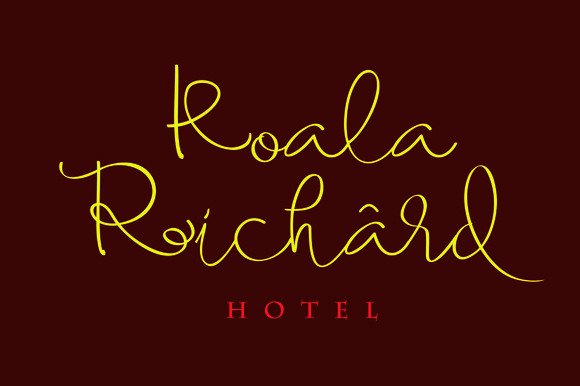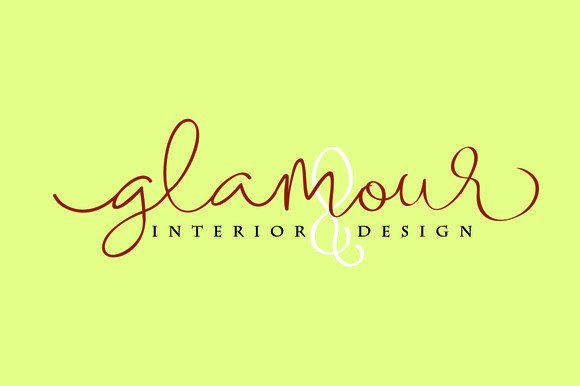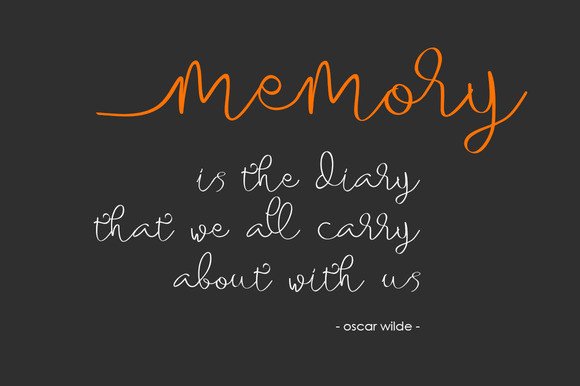
HomeScript FontsAlmarhum Font Script Fonts Almarhum Font FacebookXPinterestWhatsApp Almarhum Font Poster 2 Almarhum Font Poster 3 Almarhum Font Poster 4 Almarhum Font Poster 5 About Almarhum Font Almarhum is a beautiful, thin font; this monoline based font has a signature vibe for a relaxed and casual feel. DOWNLOAD NOW People also explored Metalmol Font Love Sunflowers Font Kathilarysa Font Yagami Font Callista Font Breston Monoletter Font Roundabout Rossalyne Font Juide Font 277 0 TagsAlmarhum Font Previous articleSambay FontNext articleEsmeralda Font LEAVE A REPLY Cancel reply Comment: Please enter your comment! Name:* Please enter your name here Email:* You have entered an incorrect email address! Please enter your email address here Website: Save my name, email, and website in this browser for the next time I comment. Personal Use Free Bonhomie Personal Use Free Read more about this font Critical Personal Use Free Read more about this font Foolish Hand Personal Use Free Read more about this font Capellen Personal Use Free Read more about this font BLOG Free vs Paid Fonts: Why Investing in Premium Fonts Is Worth It Free vs Paid Fonts: Why Premium Fonts Are Worth It in 2025 The debate of free vs paid fonts continues in the design world. While... Fonts That Capture the Spirit of New York City The 10 Best Handwriting Fonts to Add Personality to Your Designs Top 10 Handwritten Fonts That Elevate Your Designs